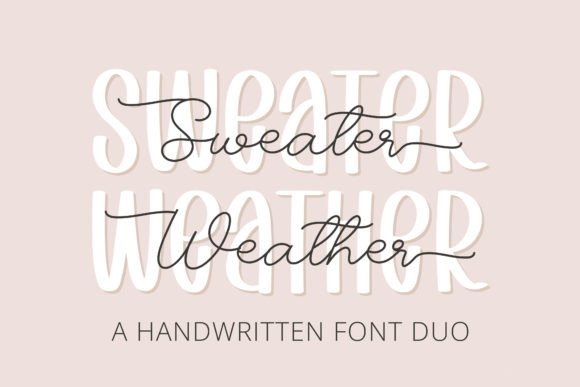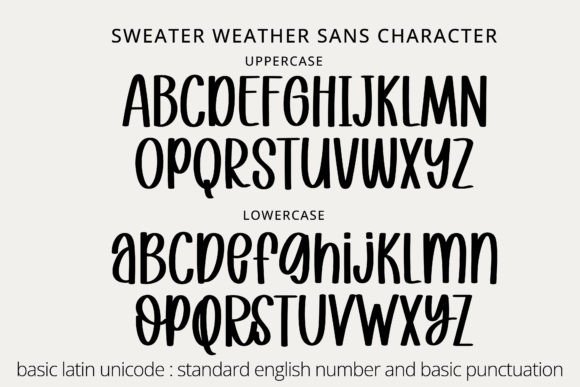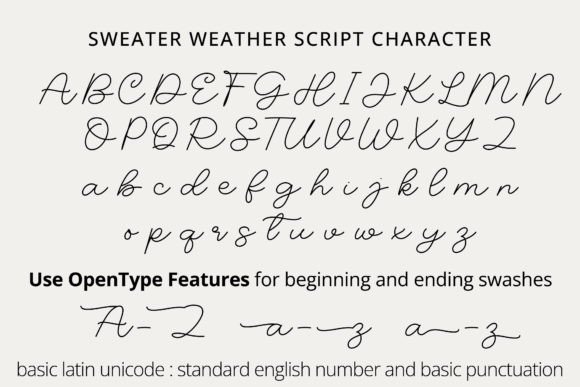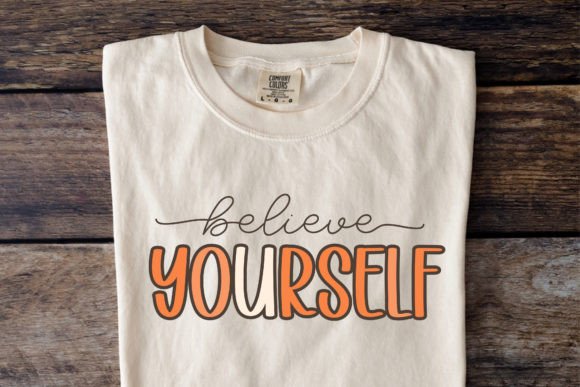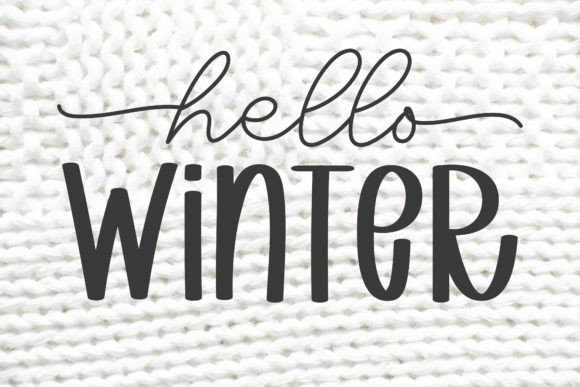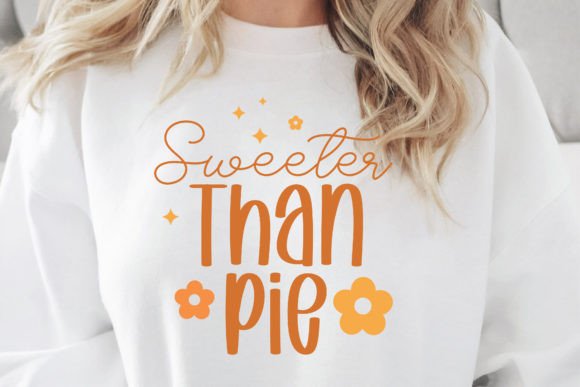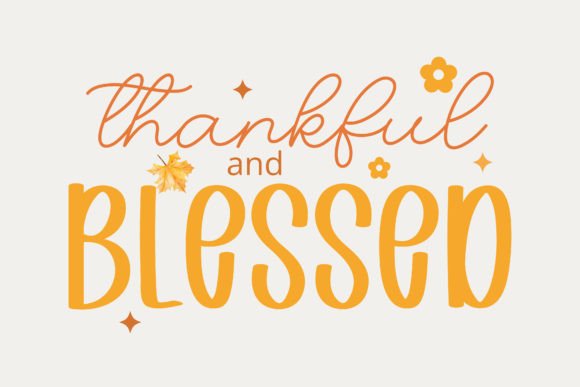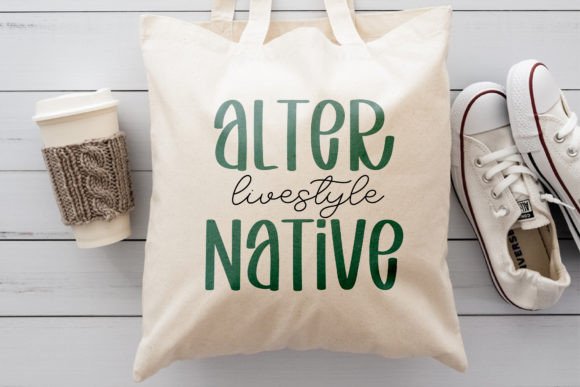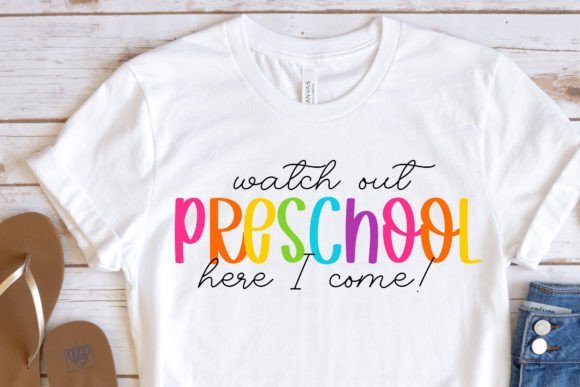
Sweater Weather Font
Sweater Weather is a duo-styled handwritten font that feels equally charming and delicate. It will turn any creative idea into a standout! You can use it for Christmas cards, wedding designs, local signs, branding, logos, quotes, photography projects, birthday cards, and more!